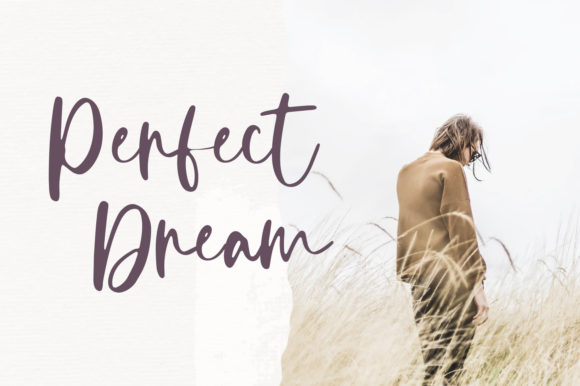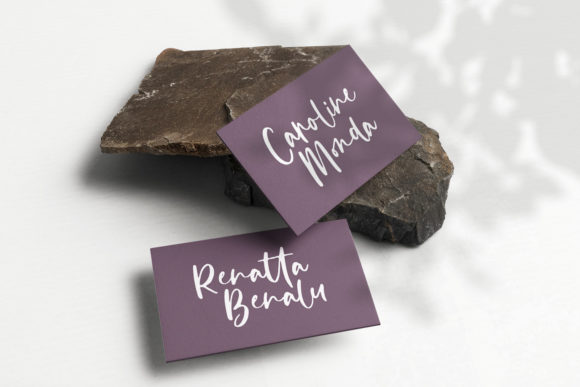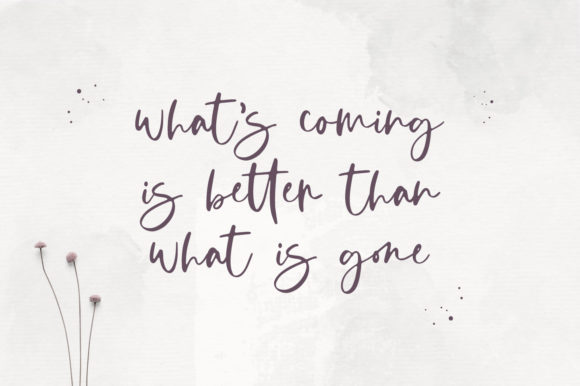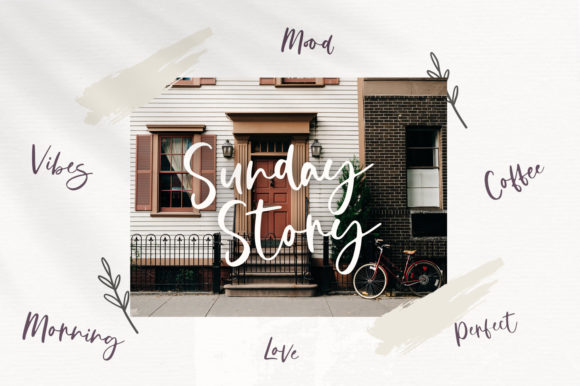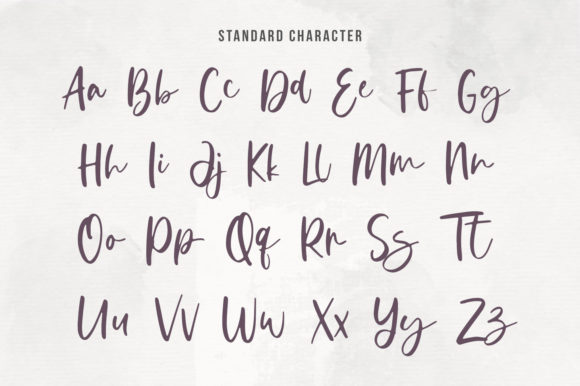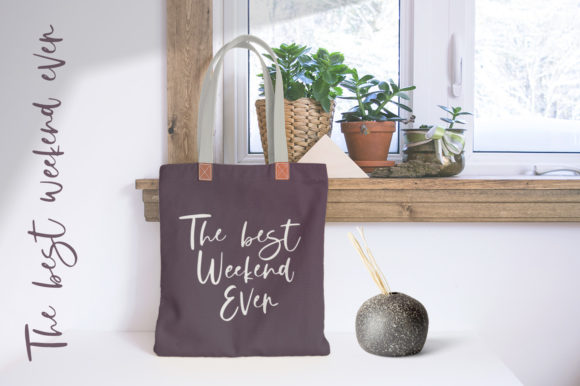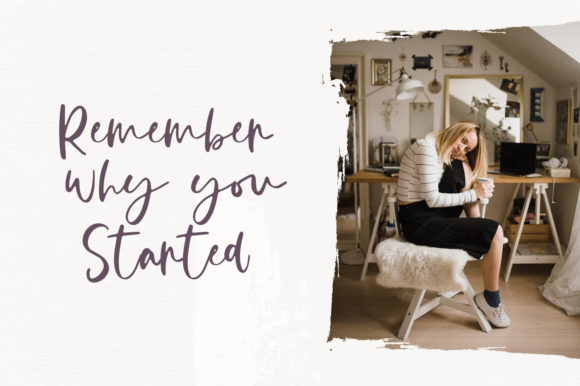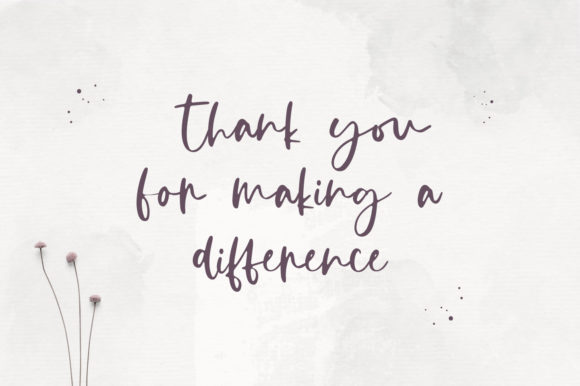
Donittan Story Font
Donittan Story is a handwritten signature script with a natural & stylish flow. It will add an authentic touch to any design idea.